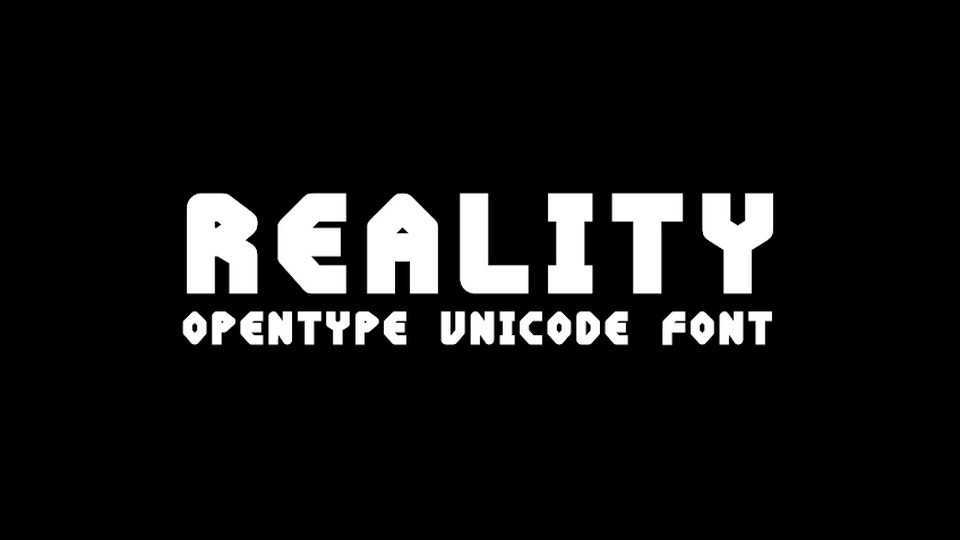
Download PVF Reality font, a round geometric typeface with a strong but friendly impression. PVF Reality is suitable for headings, poster titles, logotypes, signage, packaging and can even be used for interesting paragraphs.